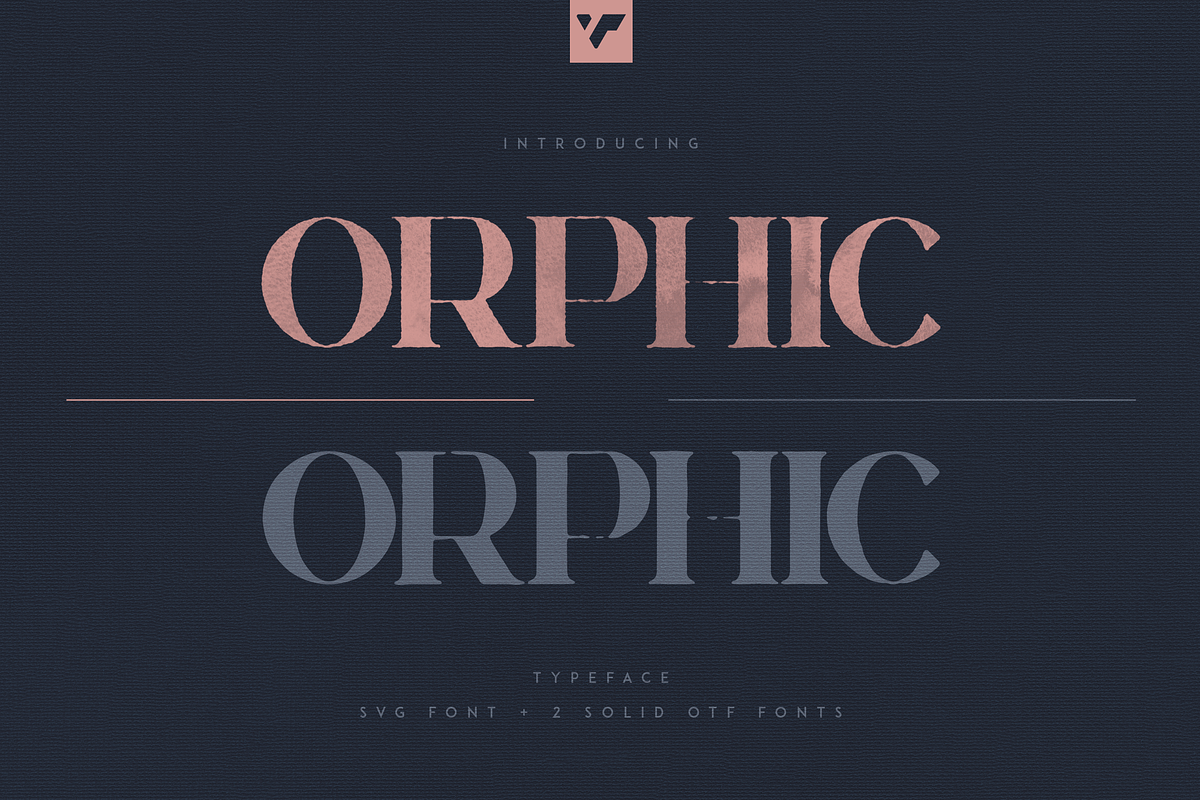
Orphic Typeface – SVG + Solid Fonts Free Download is a striking and artistic display font that comes in both textured SVG and clean solid versions. This dual-style setup gives you the freedom to create bold, high-impact visuals with realistic brushstroke detail or a more polished, vector-friendly finish.
Orphic is perfect for album covers, fashion branding, poster art, social media graphics, and edgy product packaging. The SVG version showcases rich, high-resolution paint textures for an authentic hand-crafted look, while the solid version offers versatility for crisp, scalable designs.
Add a layer of depth and drama to your design with the creative edge of Orphic.